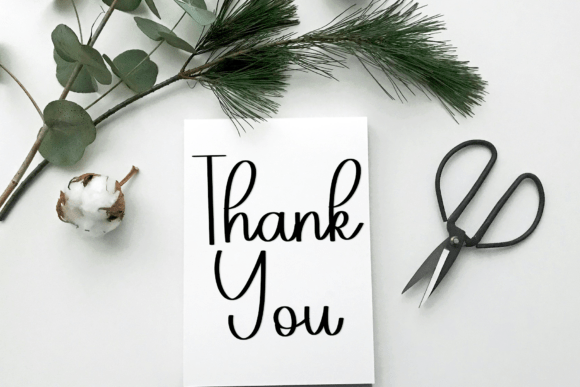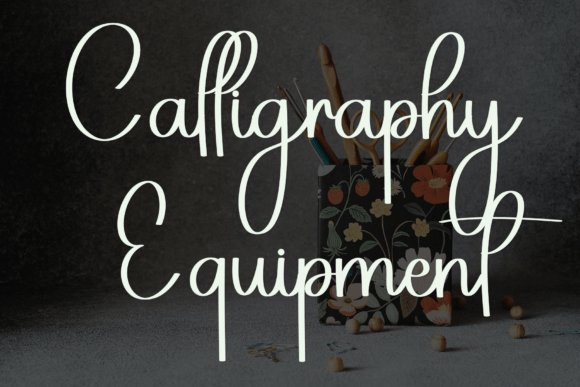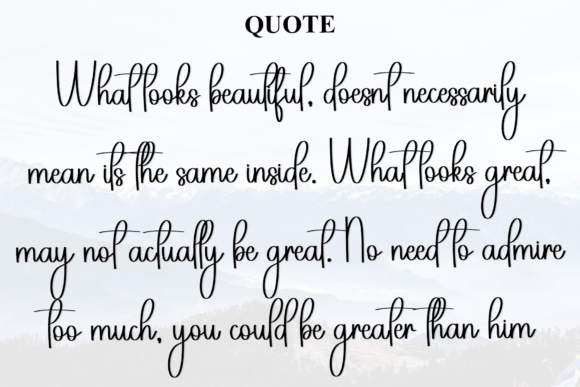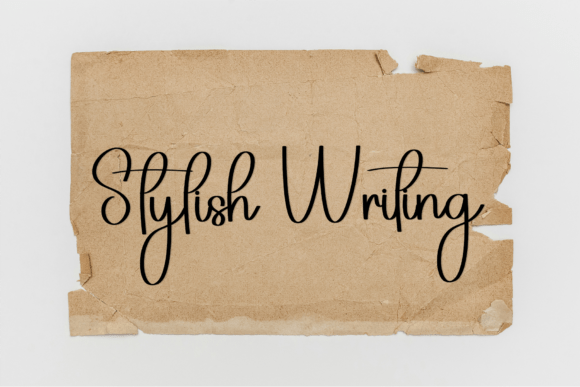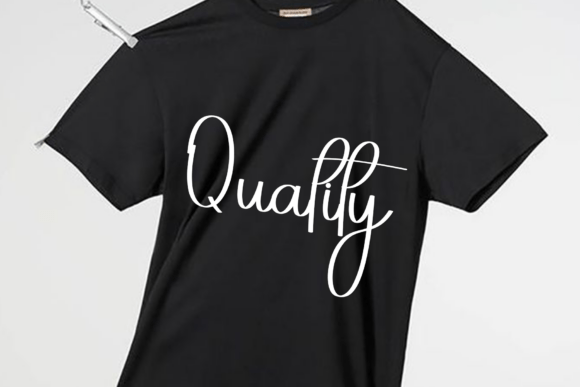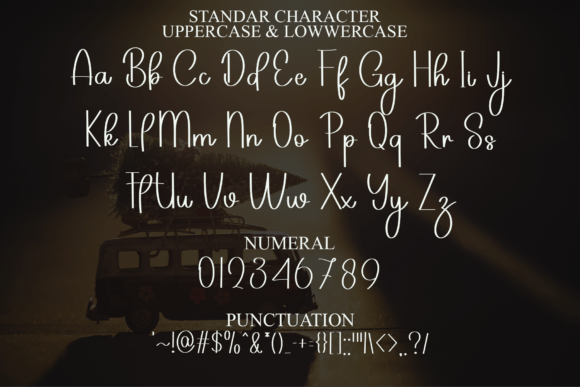
Cowgirls Handmade Font: Add a Touch of Warmth and Friendliness to Your Designs
Are you looking for a font that can add a personal touch to your designs? Look no further than the Cowgirls Handmade Font. This casual and creative font is perfect for designers and crafters who want to create unique and eye-catching designs that exude warmth and friendliness.
The Characteristics of Cowgirls Handmade Font
The Cowgirls Handmade Font is characterized by its round, playful strokes that create a relaxed and approachable feel. The font’s charming, hand-drawn aesthetic adds a fun and unique touch to any design, making it perfect for personal projects, invitations, and social media graphics.
One of the standout features of this font is its ability to add a personal touch to any design. The font’s hand-drawn aesthetic gives it a unique and homemade feel that is sure to capture the attention of your audience.
What Makes Cowgirls Handmade Font So Versatile?
The font’s versatility is also due to its casual and creative nature. It’s perfect for designers and crafters who want to create unique and eye-catching designs that stand out from the crowd.
Perfect for Personal Projects and Small Businesses
The Cowgirls Handmade Font is perfect for personal projects and small businesses who want to add a personal touch to their designs. Whether you’re creating invitations, social media graphics, or print materials, this font is sure to make your designs stand out.
The font’s friendly and approachable feel makes it perfect for businesses that want to create a warm and welcoming brand identity. It’s also great for designers who want to create unique and eye-catching designs that capture the attention of their audience.
Benefits of Using Cowgirls Handmade Font
- Unique and eye-catching designs: The Cowgirls Handmade Font is perfect for designers and crafters who want to create unique and eye-catching designs that stand out from the crowd.
- Warm and welcoming feel: The font’s friendly and approachable feel makes it perfect for businesses that want to create a warm and welcoming brand identity.
- Perfect for personal projects and small businesses: The font is perfect for personal projects and small businesses who want to add a personal touch to their designs.
The Cowgirls Handmade Font is a casual and creative font that is perfect for designers and crafters who want to add a personal touch to their designs. Its round, playful strokes create a relaxed and approachable feel, making it perfect for personal projects, invitations, and social media graphics.
The font’s charming, hand-drawn aesthetic adds a fun and unique touch to any design, making it perfect for businesses that want to create a warm and welcoming brand identity. With its compatibility with a wide range of applications, the Cowgirls Handmade Font is a versatile font that is sure to become a staple in your design toolkit.